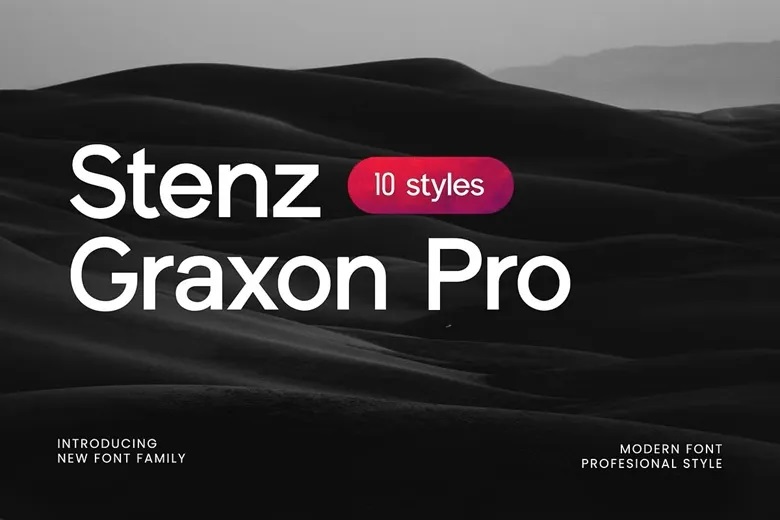
Stenz Graxon Pro Font
Stenz Graxon Pro is a modern sans-serif font family with a beautiful, classy, and stylish look. It works well for many projects, including signatures, stationery, logos, weddings, typography quotes, magazine or book covers, website headers, and branding.
This font is also a great choice for fashion branding or editorial design, as it combines both masculine and feminine qualities.
Stenz Graxon Pro Sans Serif Font